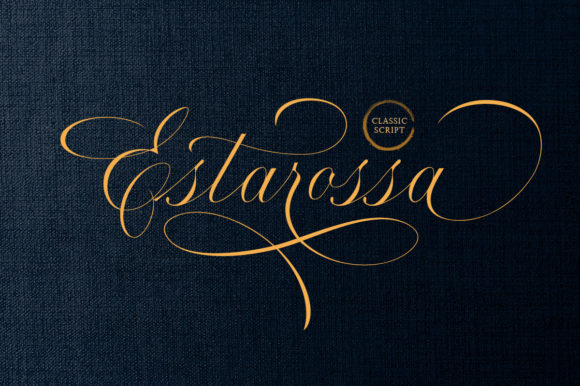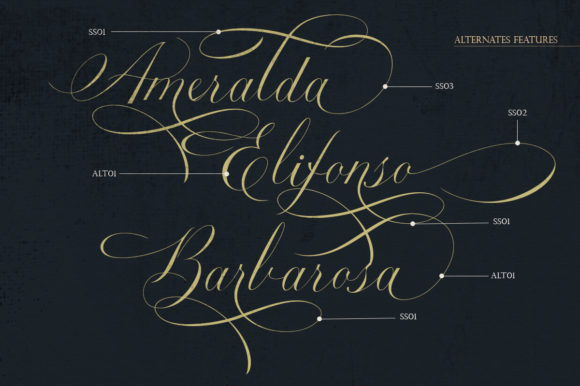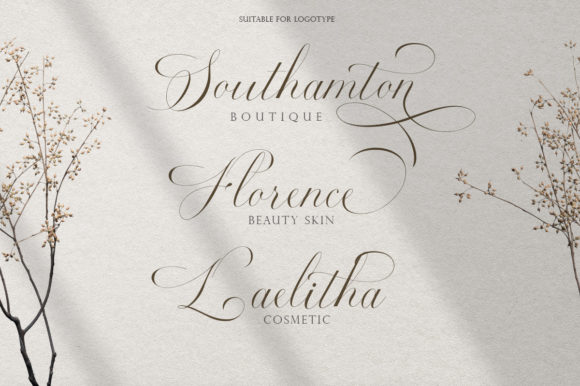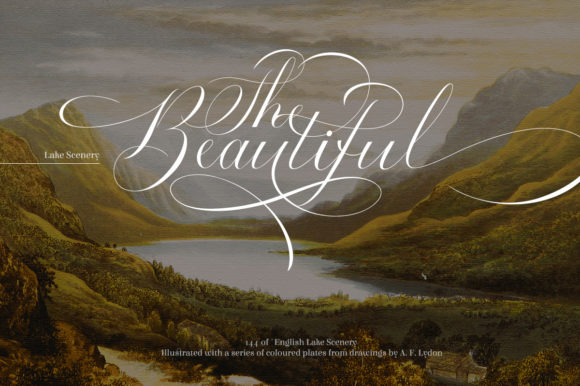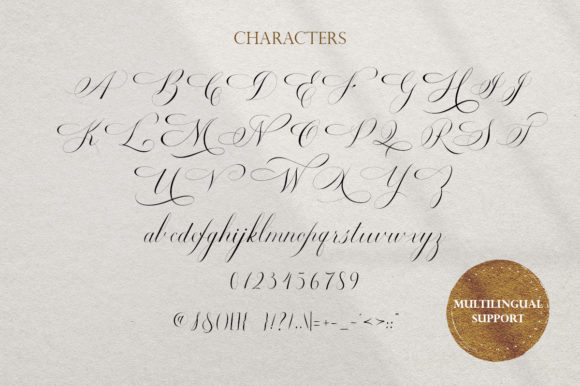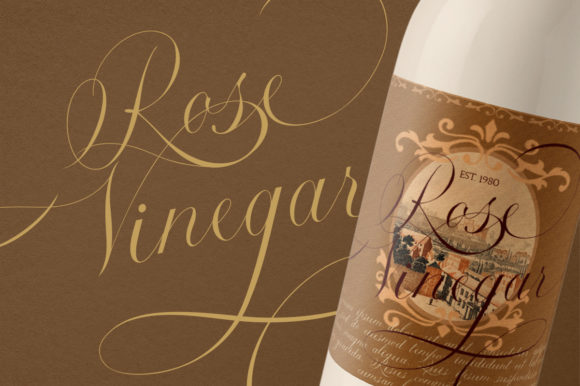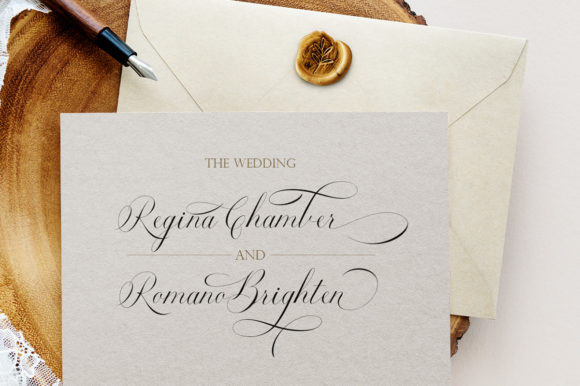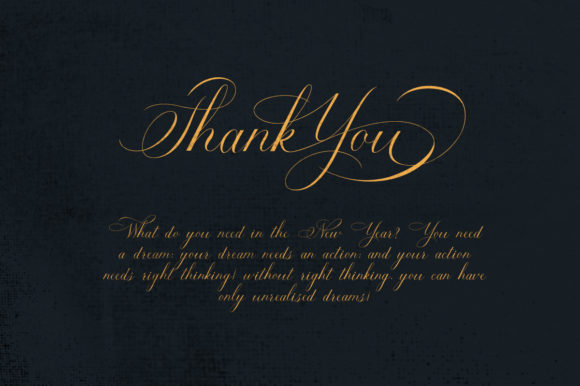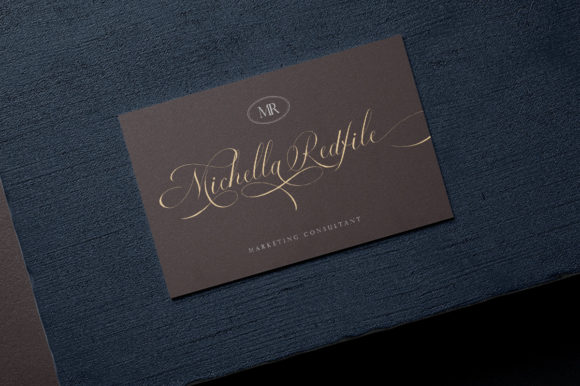
Estarossa Font
About Estarossa Font
Estarossa is a modern and elegant handwritten font that brings a touch of sophistication to your crafting projects. With its refined and stylish appearance, this font is perfect for adding a contemporary and polished look to a wide range of creative endeavors.
The distinctive feature of Estarossa lies in its sleek and well-crafted letterforms, which exude a sense of modernity and elegance. Each character is carefully designed with smooth lines and balanced proportions, resulting in a font that is both visually pleasing and highly legible. Whether you’re working on invitations, cards, scrapbooking, or any other crafting project, Estarossa will elevate your designs with its refined and sophisticated style.
One of the advantages of Estarossa is its versatility. It can be used in various crafting projects, from creating personalized invitations and stationery to designing beautiful artwork or home decor. The font’s modern and elegant aesthetic adds a touch of class and professionalism to your creations.
When designing invitations or cards, Estarossa can bring a sense of sophistication and refinement to your event. Whether it’s a wedding, anniversary, or formal celebration, the font’s elegant appearance sets the tone for a memorable and stylish occasion. Its clean and balanced letterforms ensure that your text stands out while maintaining a sense of elegance.
For scrapbooking and other paper crafting projects, Estarossa adds a modern and polished look to your layouts. It can be used for titles, captions, or quotes, creating a cohesive and sophisticated visual presentation. The font’s versatility allows it to blend seamlessly with different design elements and styles, enhancing the overall aesthetic of your projects.
In terms of artwork or home decor, Estarossa can be used to create beautiful typography prints, wall art, or personalized gifts. Its modern and elegant nature adds a touch of sophistication to any space, making it a perfect choice for contemporary interior design.
Furthermore, Estarossa’s PUA encoding allows easy access to all the glyphs and swashes it offers. This means you can explore and utilize the various alternate characters, ligatures, and decorative elements available in the font. By using these additional options, you can further customize and enhance your designs, adding even more elegance and uniqueness.
When using Estarossa, consider experimenting with different sizes, colors, and compositions to fully utilize its modern and elegant features. The font’s clean and refined lines make it suitable for both bold and subtle applications. You can also pair Estarossa with other complementary typefaces to create visually pleasing combinations that enhance your overall design aesthetic.
In summary, Estarossa is a modern and elegant handwritten font that adds a sophisticated touch to your crafting projects. Whether you’re working on invitations, cards, scrapbooking, or creating artwork, this font will bring a sense of refinement and style to your designs. Embrace the contemporary elegance of Estarossa and let it elevate your crafting endeavors to new heights!